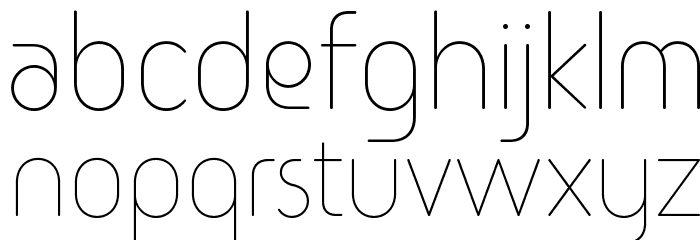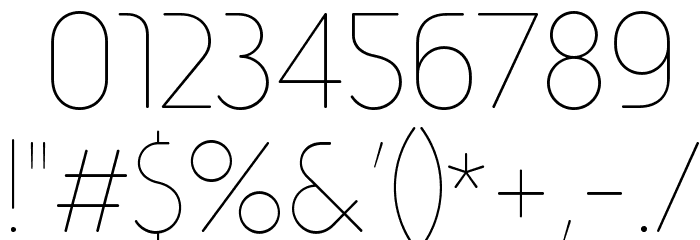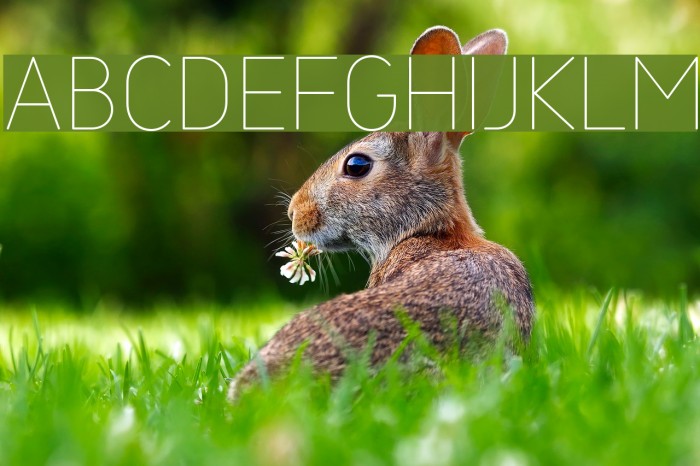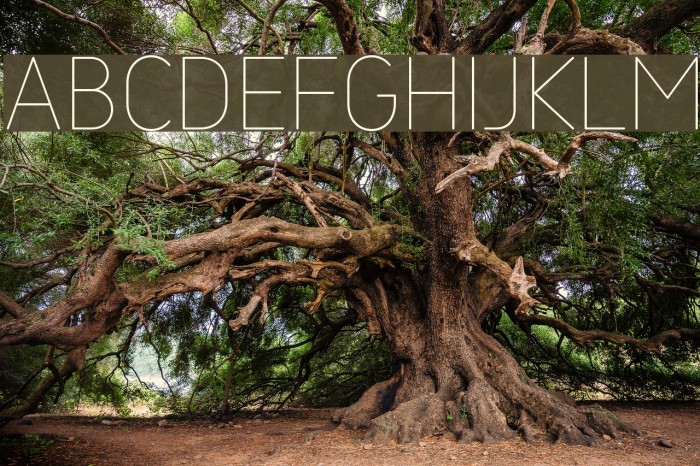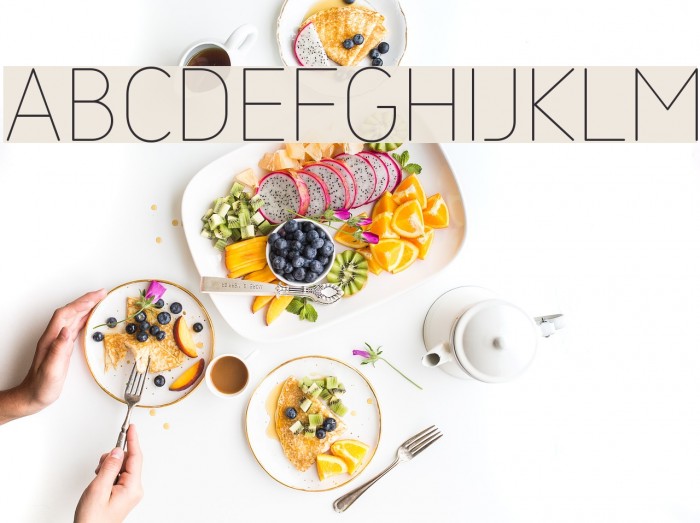
SarySoft-Thin Font
This font features a sleek and modern design with thin, clean lines that create an airy and minimalist aesthetic. The characters are evenly spaced, contributing to a balanced and harmonious appearance. The uppercase and lowercase letters maintain a consistent style, with rounded edges and a geometric structure that enhances readability. The numerals are designed to match the overall style, ensuring uniformity across all characters. Special characters are included, maintaining the same thin and elegant design, making this font versatile for various applications.
A sleek, modern font with thin lines and a minimalist aesthetic.
- Proposed Projects: Ideal for modern branding, minimalist design projects, digital interfaces, and editorial layouts.